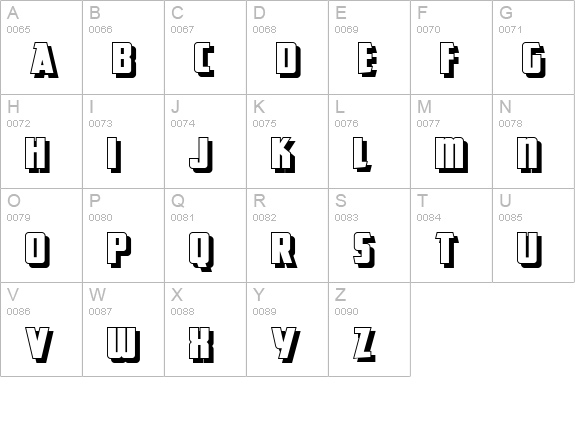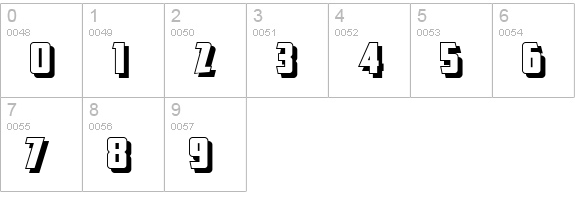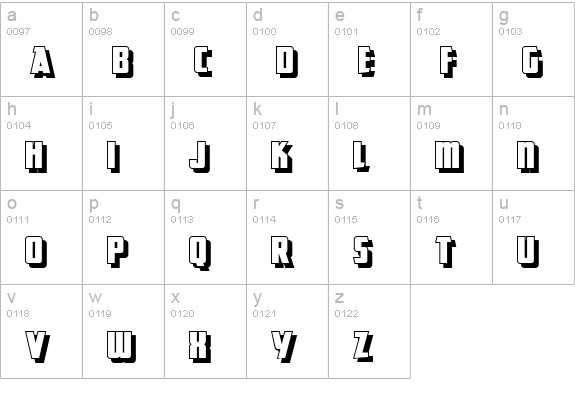
Great Lakes Shadow NF Font Details
Great Lakes Shadow NF is a stunning display font that exudes a sense of mystery and elegance. Its intricate shadow effect adds depth and dimension to any design, making it perfect for creating eye-catching headlines, posters, and logos. The font's bold and distinctive style is sure to make a memorable impression on your audience. What sets Great Lakes Shadow NF apart is not only its striking appearance but also its versatility. Whether you're working on a vintage-inspired project or a modern design, this font will complement your vision beautifully. It's a font that can effortlessly transition from a classic look to a contemporary aesthetic with ease. And the best part? Great Lakes Shadow NF is completely free to download at FontsMarket.com. This means you can enhance your creative projects with this exceptional font without any cost involved. Take advantage of this opportunity to add a touch of sophistication and uniqueness to your designs with Great Lakes Shadow NF.